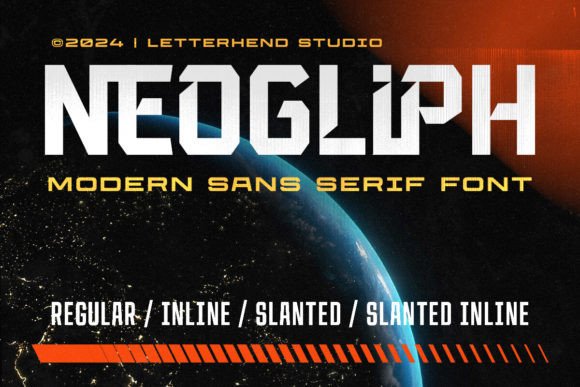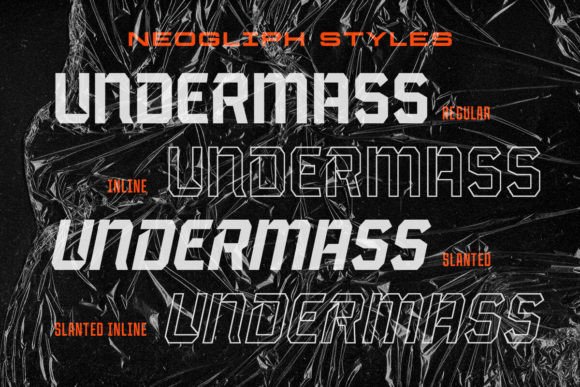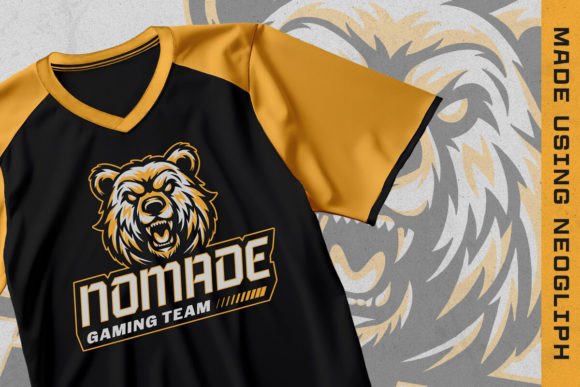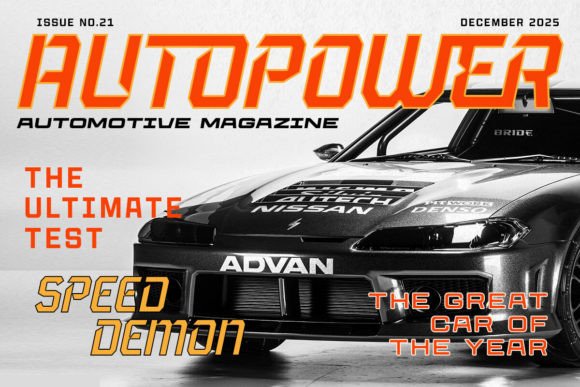
Neogliph Font: Modern Sans Serif for High-Tech Logo Design
About the Neogliph Font
The Neogliph Font offers a perfect balance of form and function for your design needs. Neogliph is the ultimate blend of modernity and cutting-edge design. Its dynamic and futuristic look conveys a sense of precision and high performance. Offered in Regular, Slanted and Inline styles, Neogliph makes your text a true icon of progress and futuristic vision.
Neogliph excels in headline applications, short impactful statements, and branding elements where a bold, modern aesthetic is desired. It’s ideal for technology companies, futuristic projects, and products emphasizing innovation. Use it sparingly in logos, posters, and packaging designs for maximum effect. Avoid using it for body copy or lengthy text; its strong forms are not optimized for readability in extended paragraphs.
Pairing Neogliph works best with clean, neutral sans-serif fonts like Open Sans or Lato for body text to balance its strong geometry. For a more playful contrast, consider pairing with a rounded geometric sans-serif. A subtle serif like Merriweather could add a touch of classic elegance, grounding the futuristic feel of Neogliph.
Its core personality is undeniably bold and futuristic, conveying a sense of high-tech sophistication and forward momentum. This makes it unsuitable for projects requiring a softer, more approachable feel.
Neogliph Font Usage Examples
Neogliph Font Example